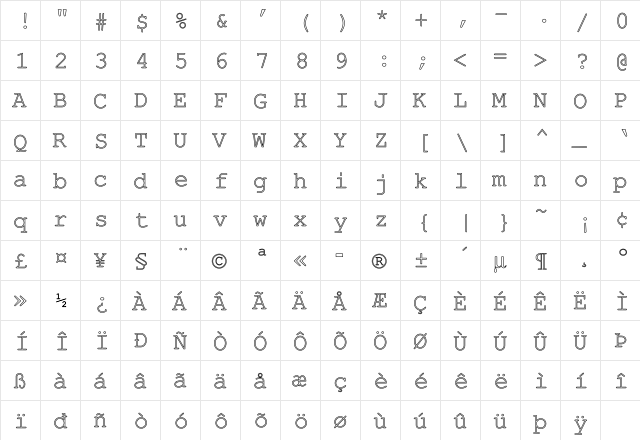
Cobb Ho Regular
Design Context for Cobb Ho Typeface
Cobb Ho is a composed and adaptable typeface that performs quietly and consistently across a wide range of design contexts.